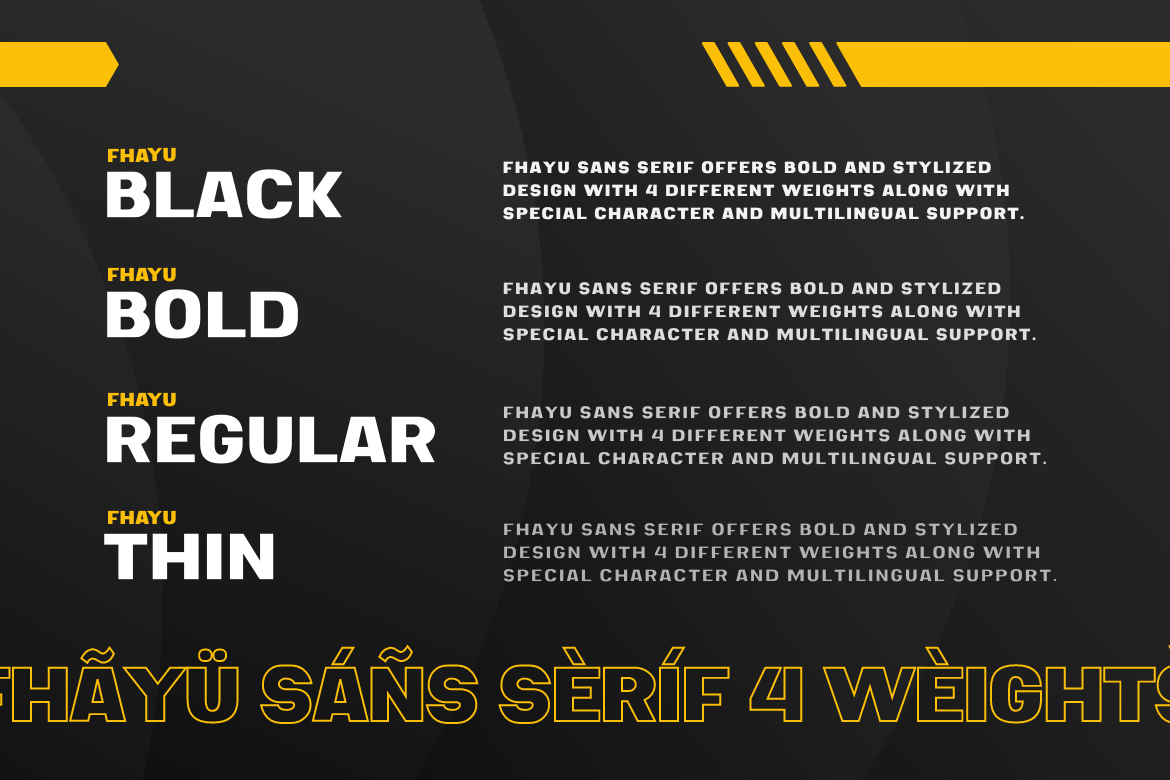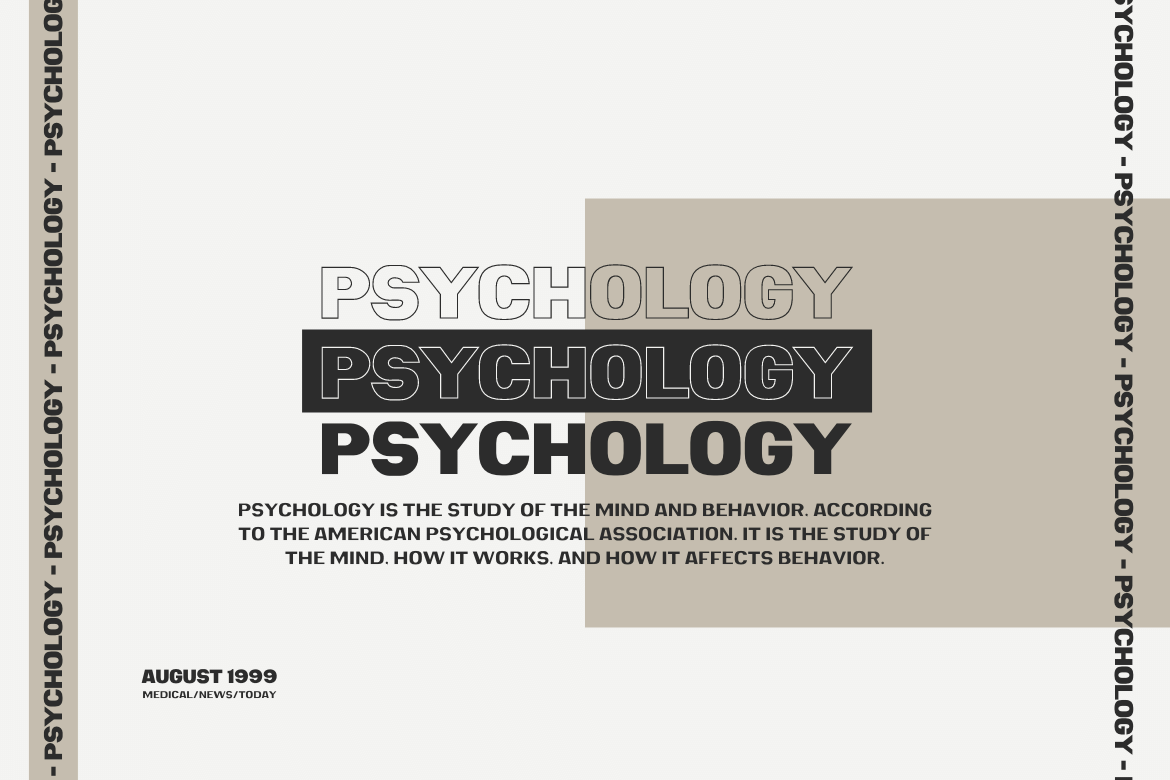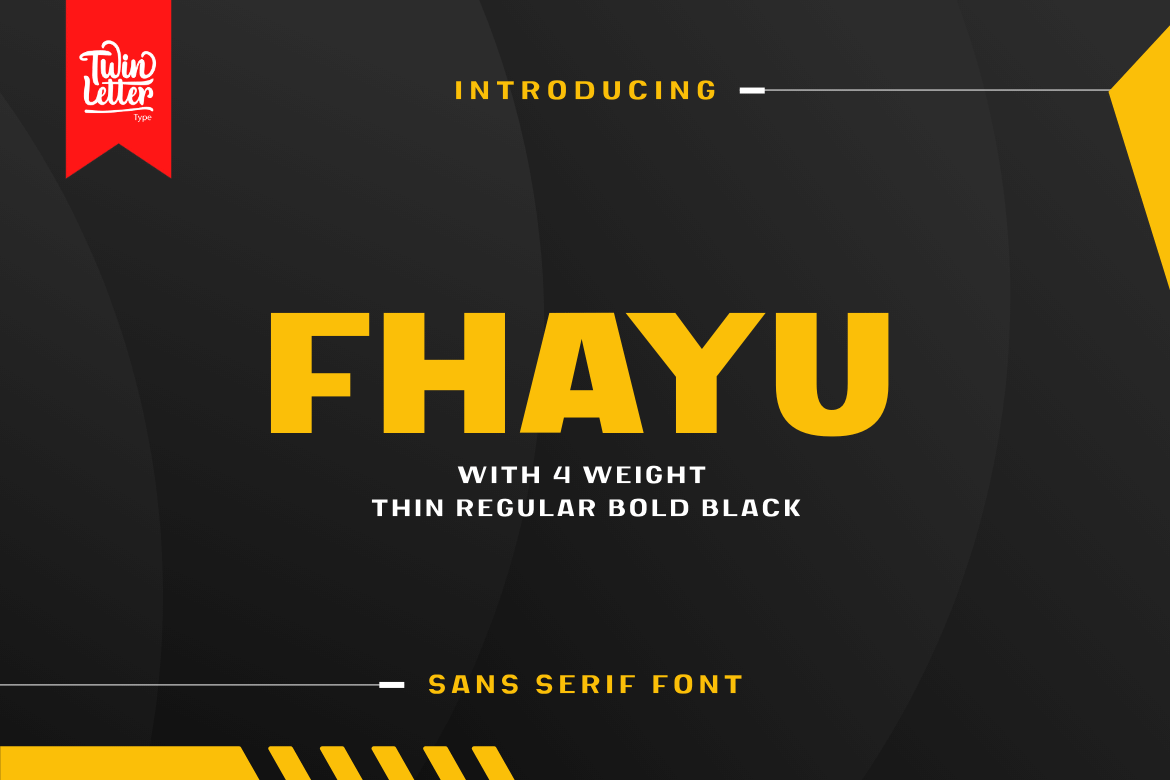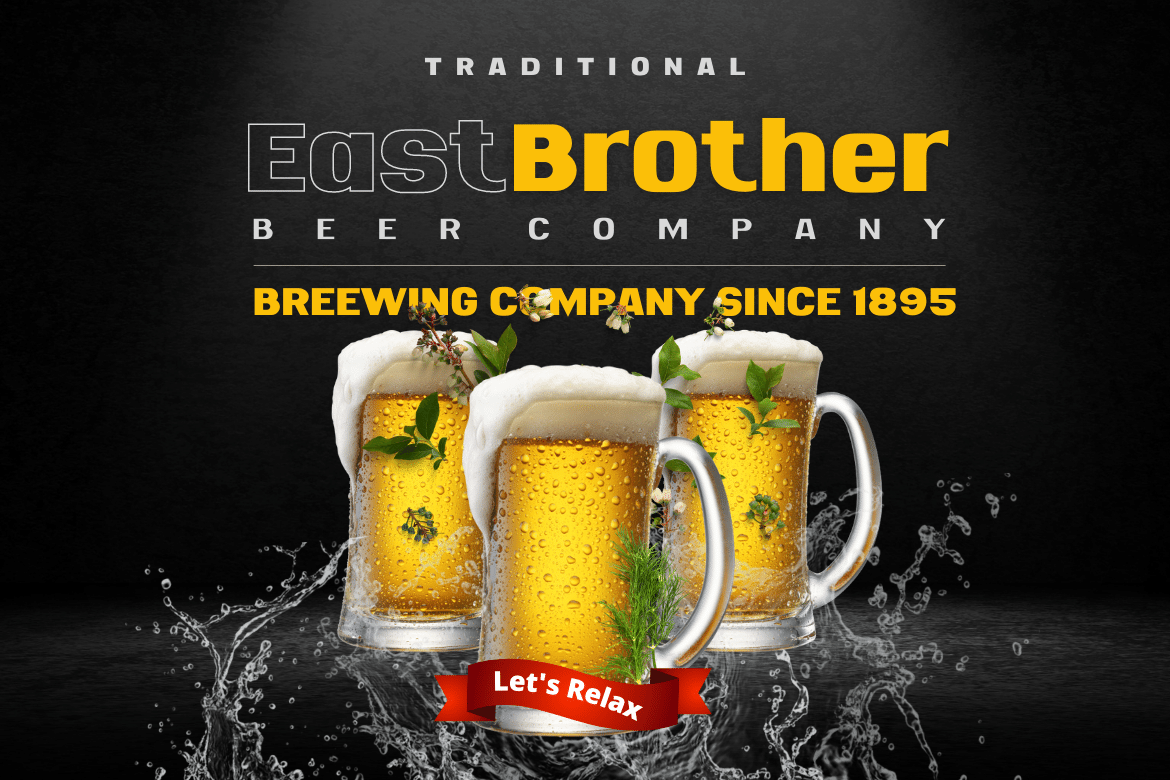
Fhayu Sans Serif Font
This is a gorgeous sans-serif font with powerful curves. This typeface offers a stunning and clean appearance that’s ideal for branding, digital products, and any of your creative projects, regardless of theme. This flexible typeface has a unique and balanced personality, making it ideal for headers and paragraphs alike.
of course, your various design projects will be perfect and extraordinary if you use this font because this font is equipped with a font family, both for titles and subtitles and sentence text, start using our fonts for your extraordinary projects.